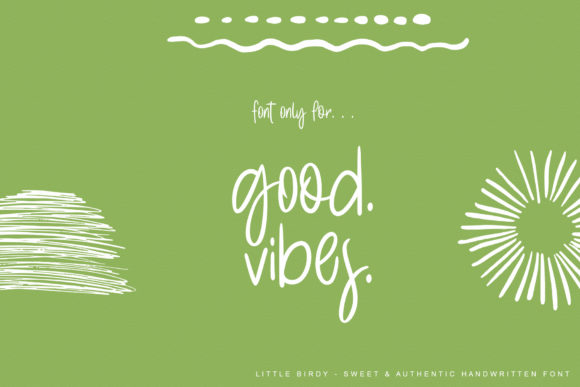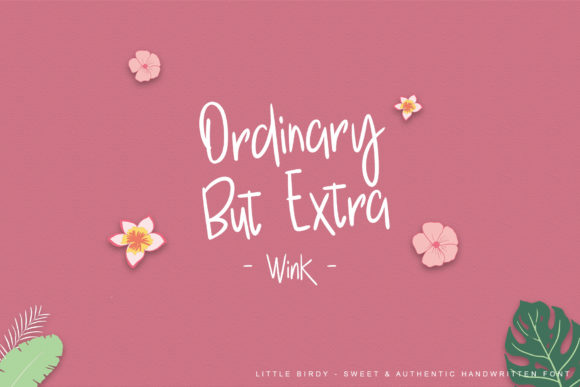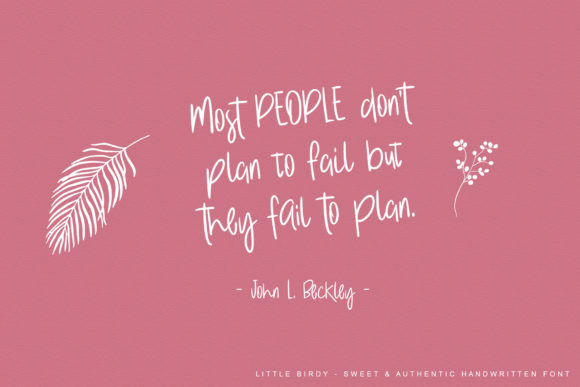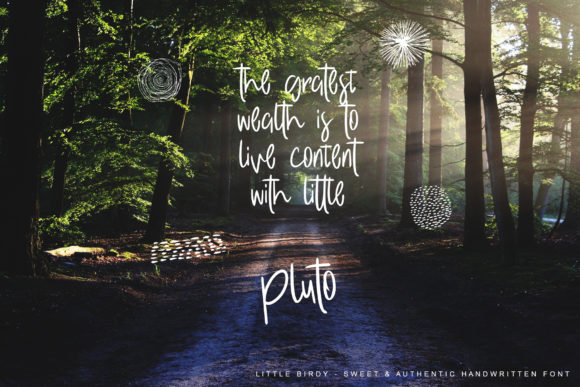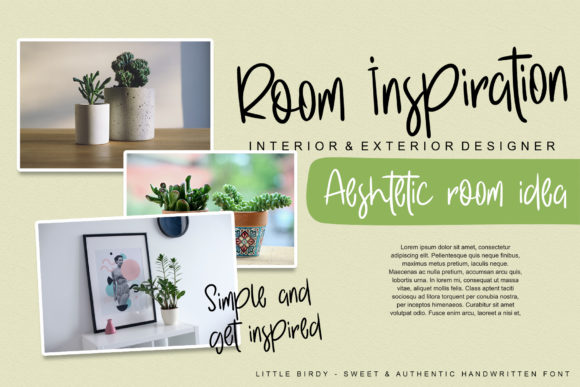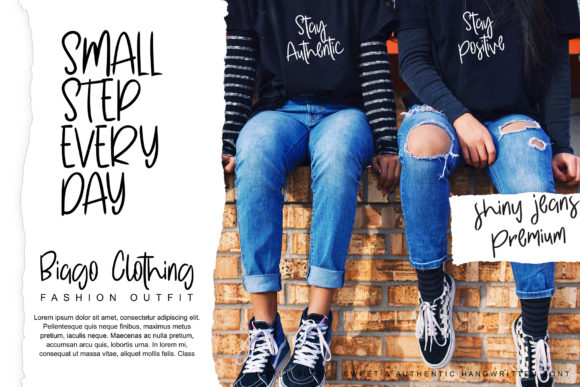
Introduction to Little Birdy Font
Little Birdy ia a sweet and delicate handwritten font.
This font is PUA encoded which means you can access all of the glyphs and swashes with ease It features a varying baseline, smooth lines, gorgeous glyphs and stunning alternates.